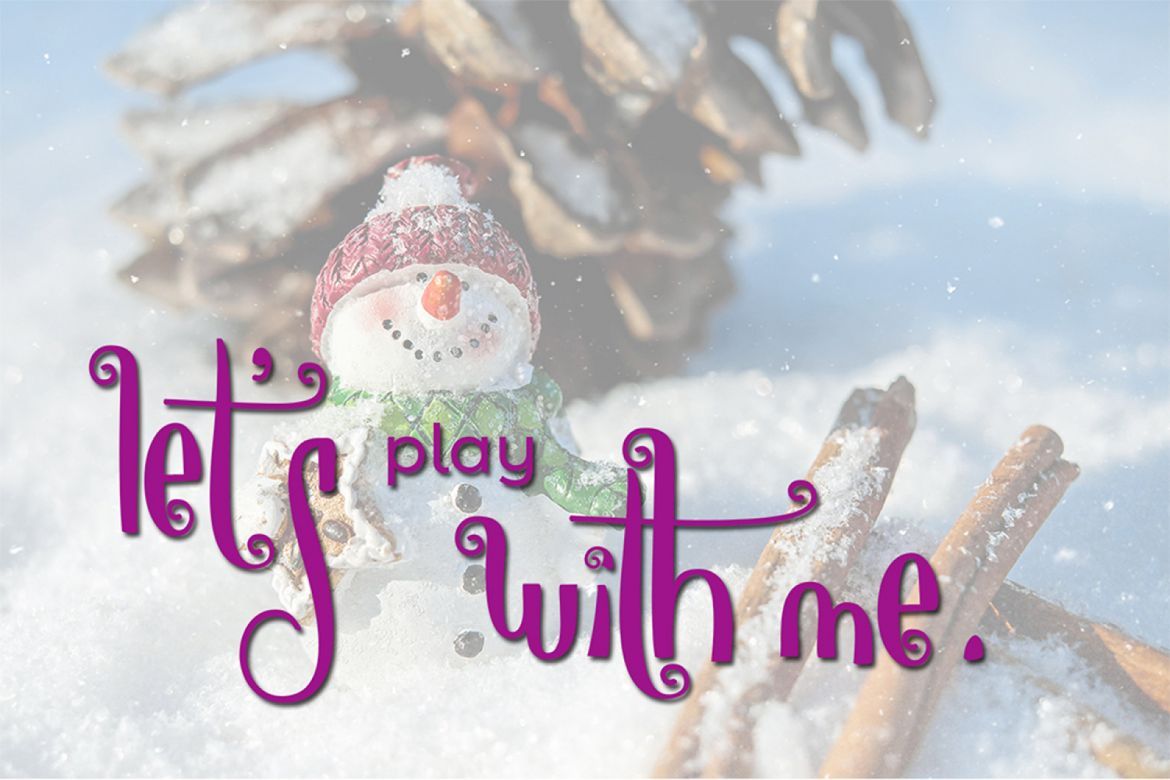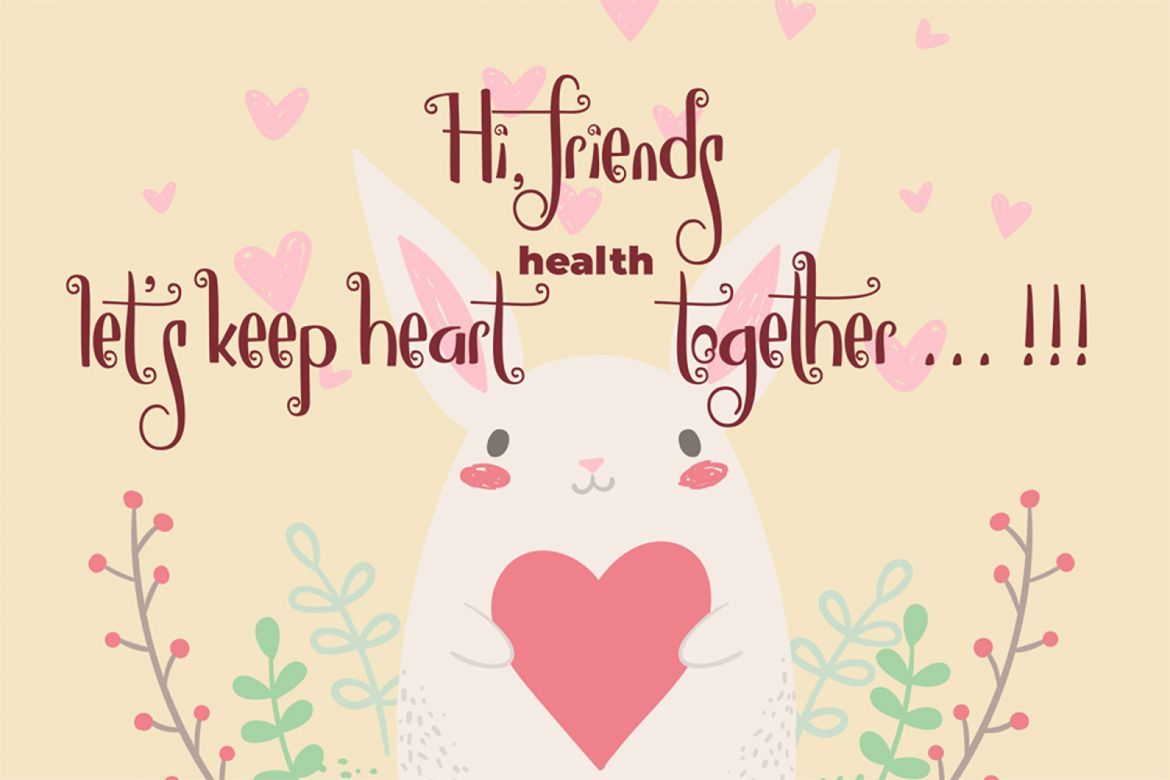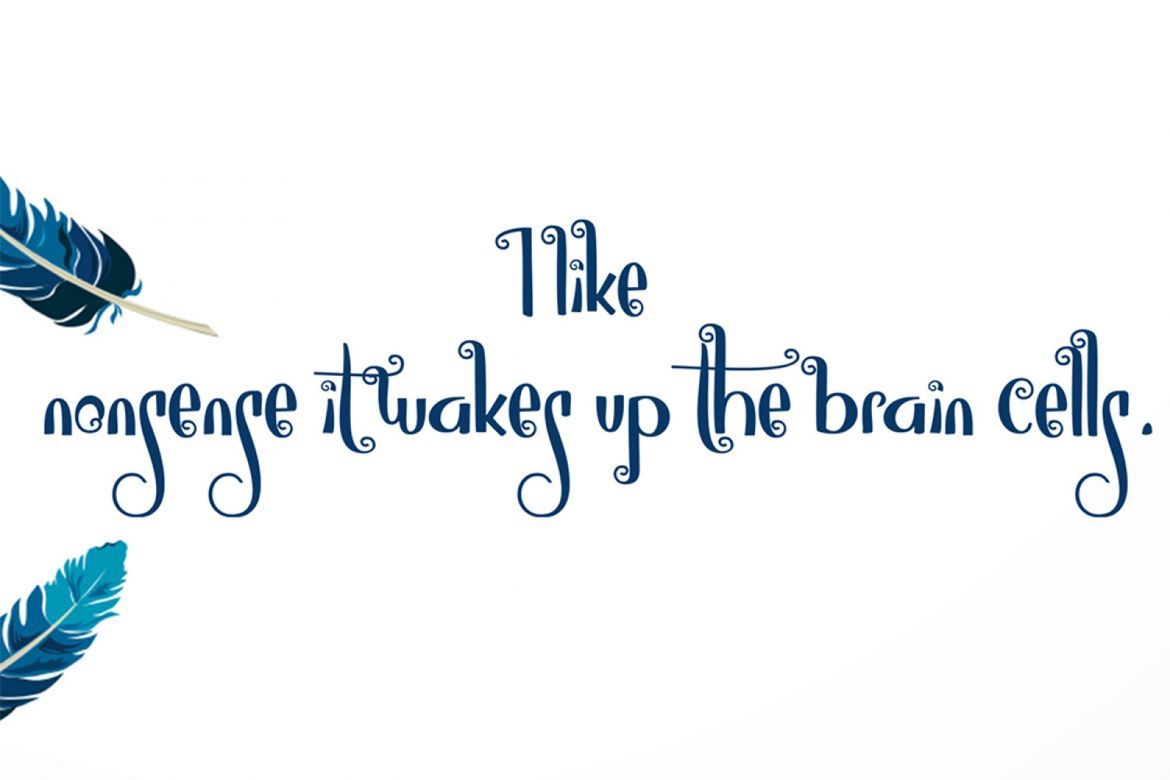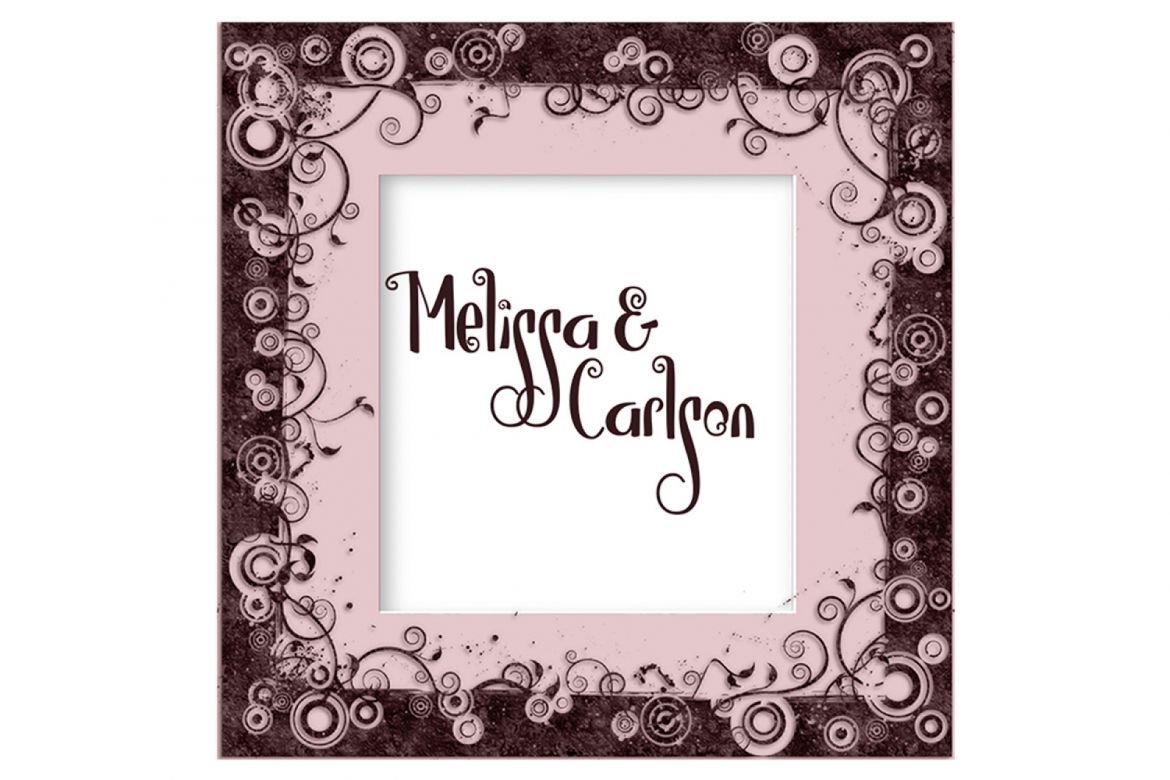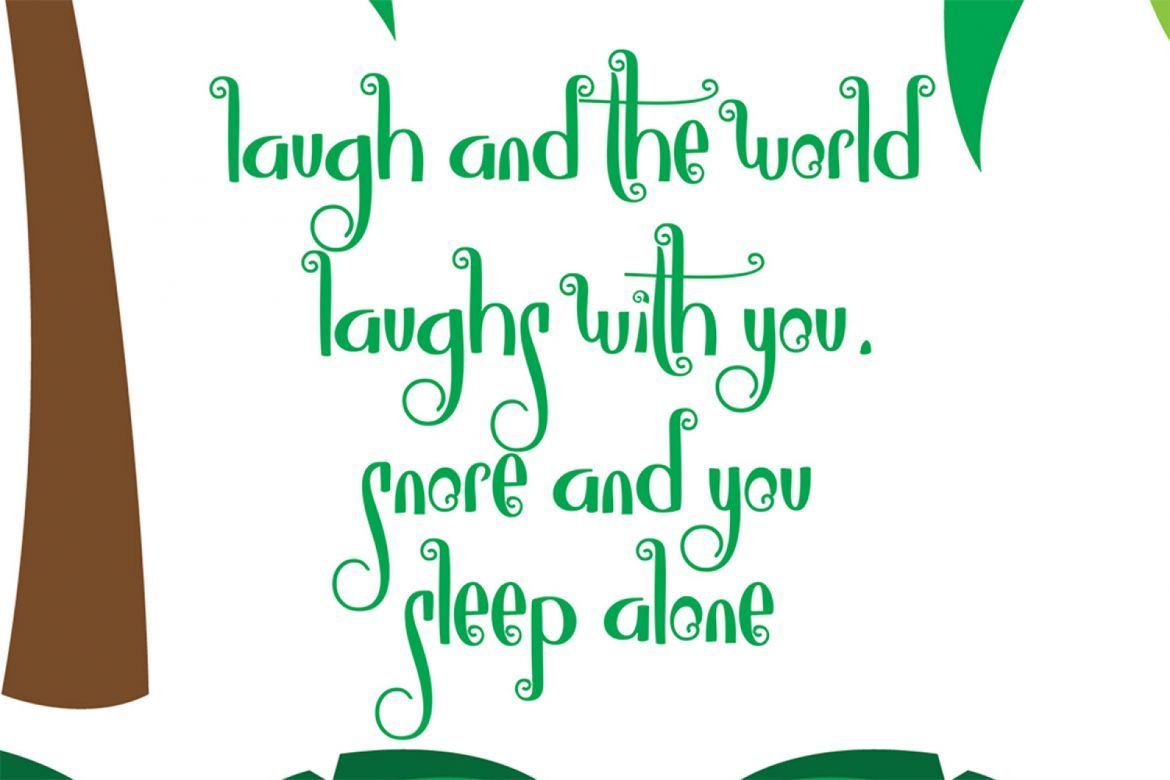
Sweet Sweet Display Font
sweet sweet is a dreamy new font from Salt and Pepper Designs. Whimsical and carefree, it can add a touch of child like innocence to your work. Happy and bouncy yet legible - that's sweet sweet!